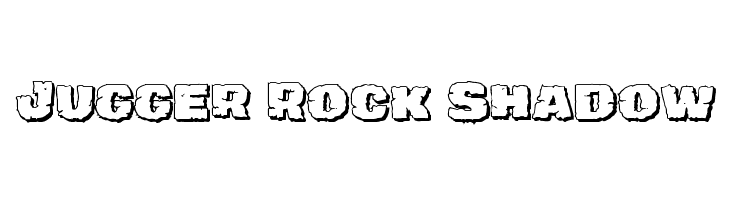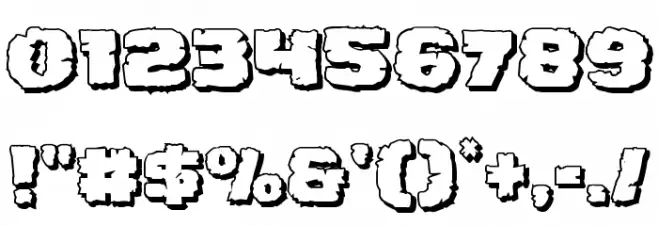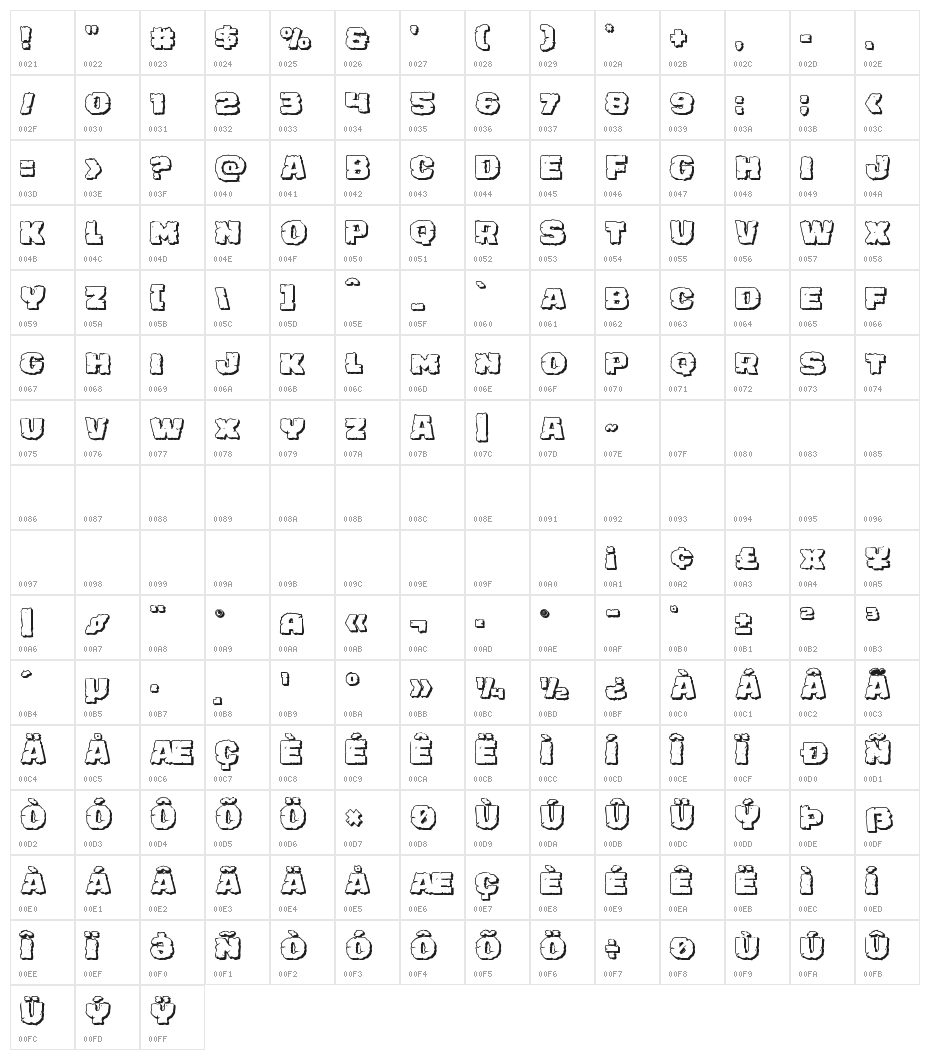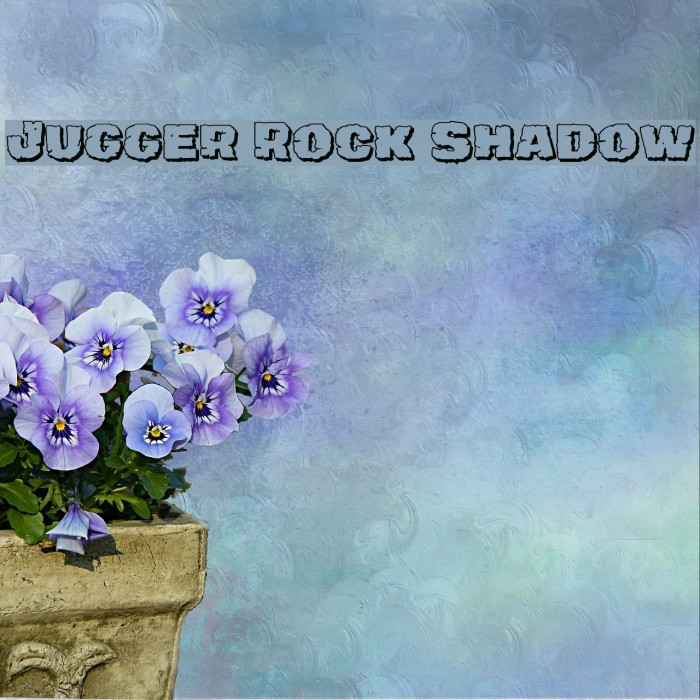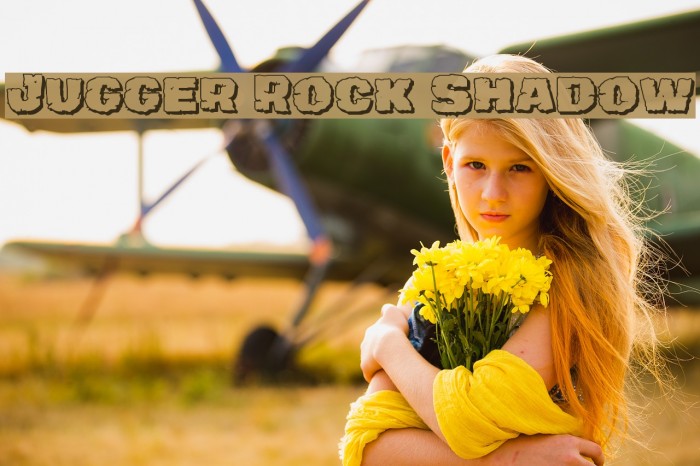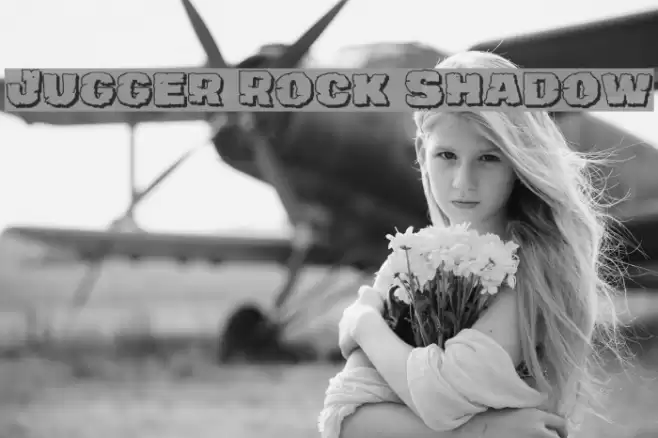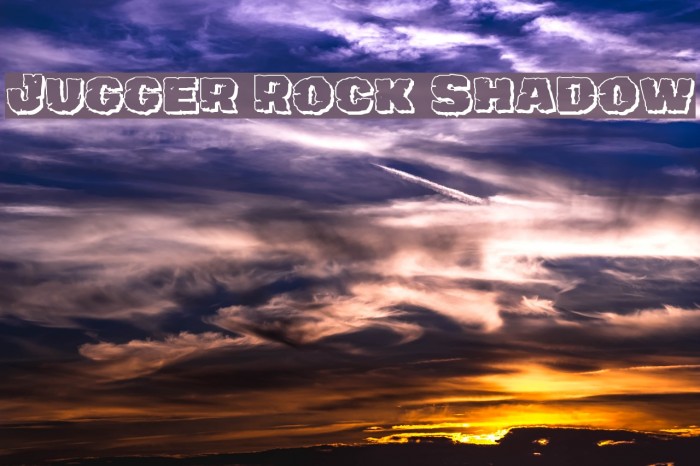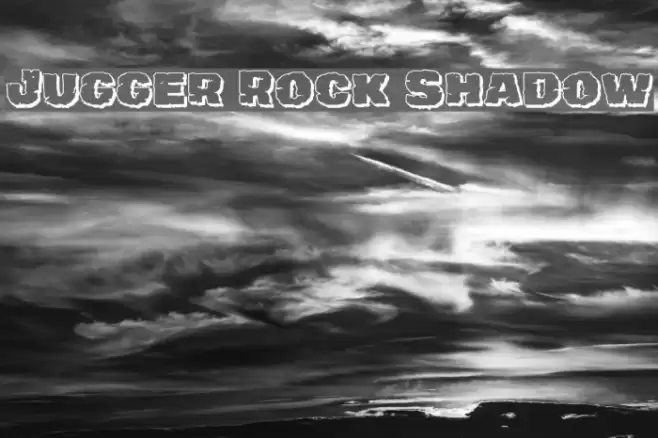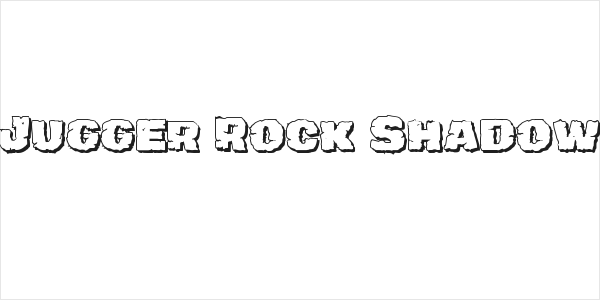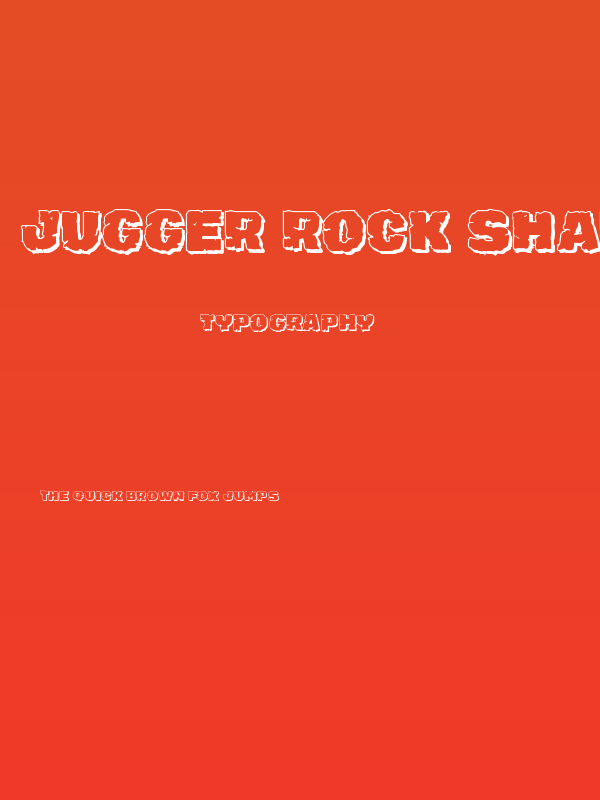
Jugger Rock Shadow Font
Jugger Rock Shadow Description
This font features a bold and rugged design, reminiscent of rock formations or cracked stone surfaces. Each character is outlined with a thick, shadowed border that adds depth and a three-dimensional effect. The interior of the letters is textured, giving an impression of roughness and natural erosion. The overall appearance is dynamic and eye-catching, making it ideal for projects that require a strong and impactful visual statement. The uppercase and lowercase letters maintain a consistent style, ensuring uniformity across different text elements.
| Proposed Projects | Ideal for rock music album covers, adventure-themed posters, video game titles, and branding for outdoor or extreme sports companies. |